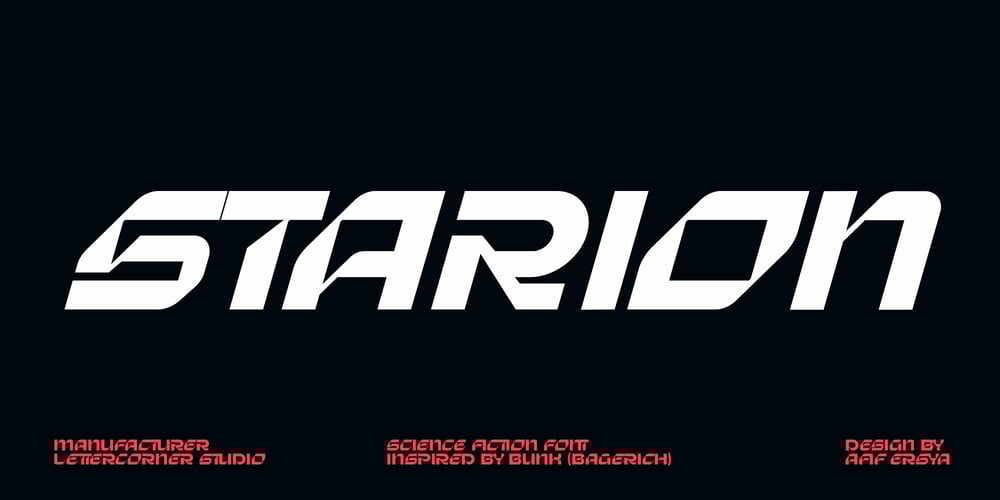
Starion Font Family was designed by Muhammad Afif Ersya and published by Mevstory Studio. Starion contains 2 styles and family package options. Starion is a new free sans serif font created by Lettercorner Studio.Starion is a futuristic modern font that features upper & lowercase characters, multilingual, numbers & punctuation. It’s well suited for use in the tech & gaming space for logos, titles, packaging, web design, apps & much more.–Uppercase